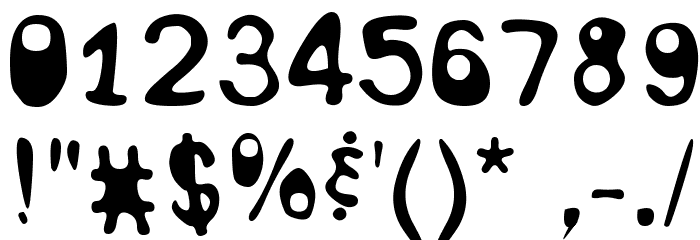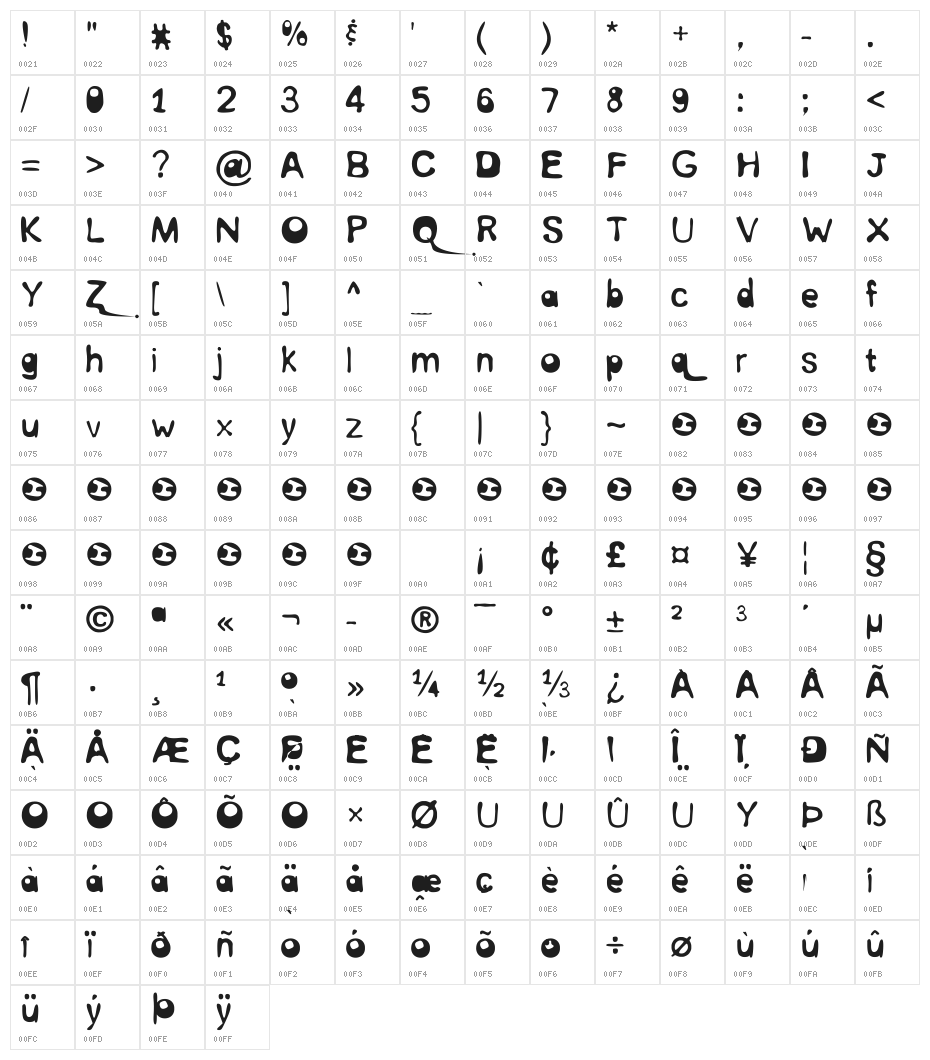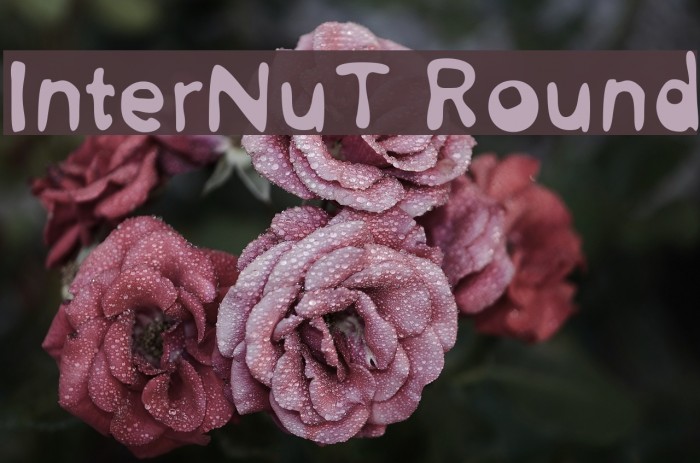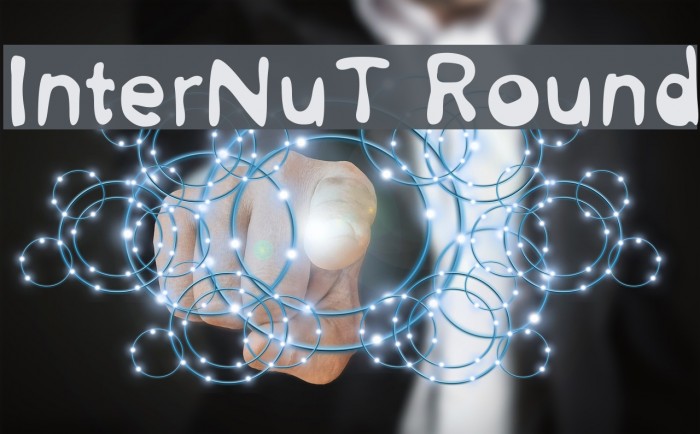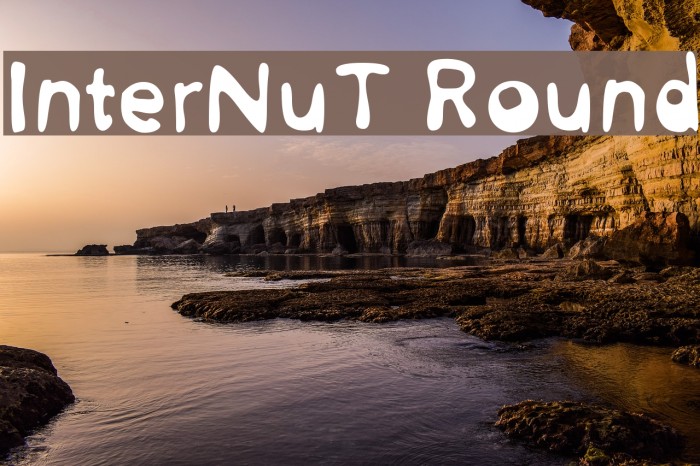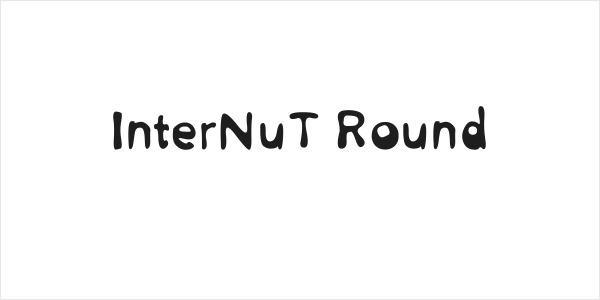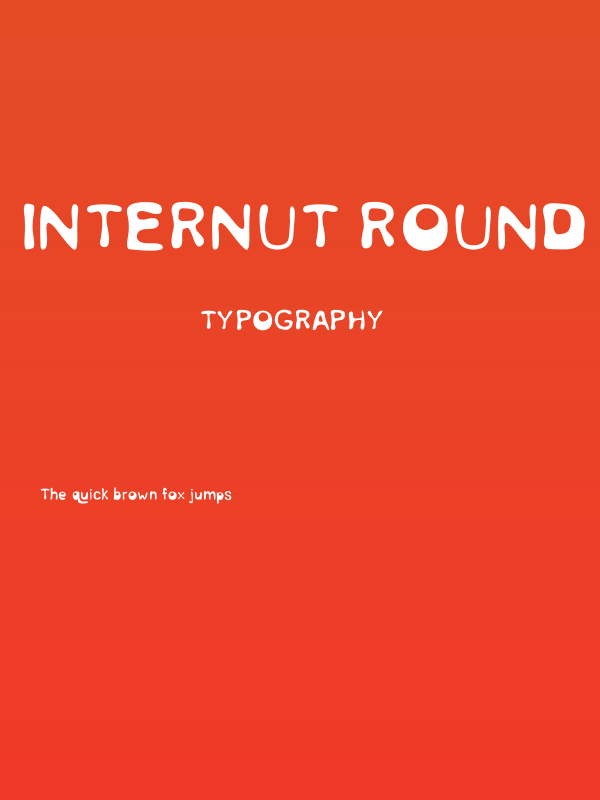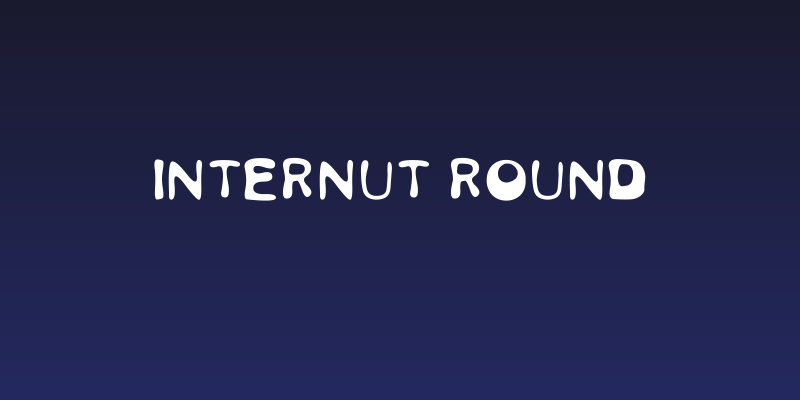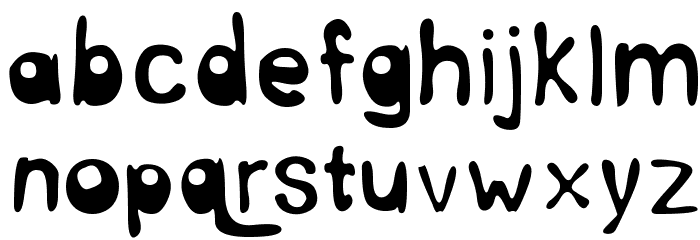
InterNuT Round Font
InterNuT Round Description
This playful and rounded font features a bold and whimsical design, characterized by its thick, smooth strokes and bubbly appearance. The letters are slightly irregular, adding a hand-drawn feel that enhances its charm and uniqueness. The uppercase and lowercase letters maintain a consistent style, with rounded edges and a friendly demeanor. Numbers and special characters follow the same design principles, ensuring a cohesive look across all elements. This font's distinctive style makes it stand out, perfect for projects that require a touch of fun and creativity.
| Proposed Projects | Ideal for children's books, playful branding, casual invitations, and creative posters. |